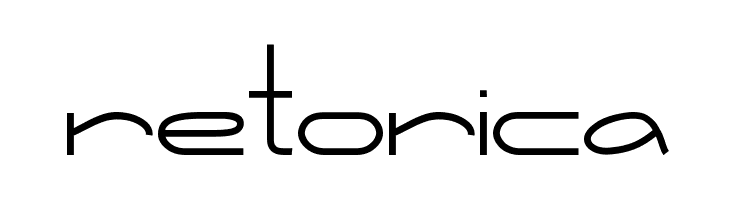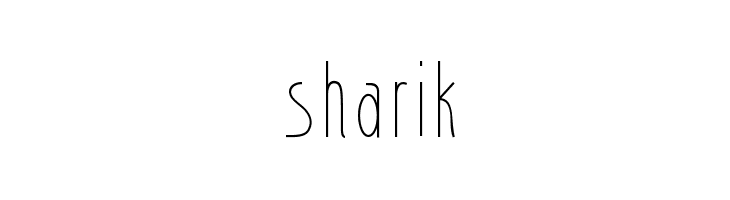
• Retorica
A modern, minimalist font with thin, geometric strokes and a sleek design.
• Retorica
A modern, geometric font with clean lines and a minimalist style.
• Fantastica
An ultra-thin, elegant font with elongated ascenders and a modern, minimalistic style.
• Fantastica
A modern, high-contrast font with thin, elongated letterforms and a unique geometric style.
• Yass
A bold, high-contrast font with elegant curves and dramatic strokes.
• graffont
A bold, graffiti-inspired font with sharp, angular edges and dynamic styling.
• sharik
A sleek, modern font with elongated, narrow letterforms and consistent stroke widths.
• NewWorld
A geometric, angular font with a modern and minimalist design.
• Lovelica
A decorative font made of heart shapes, perfect for romantic themes.
• Lovelica
A playful font made entirely of heart shapes, perfect for romantic themes.